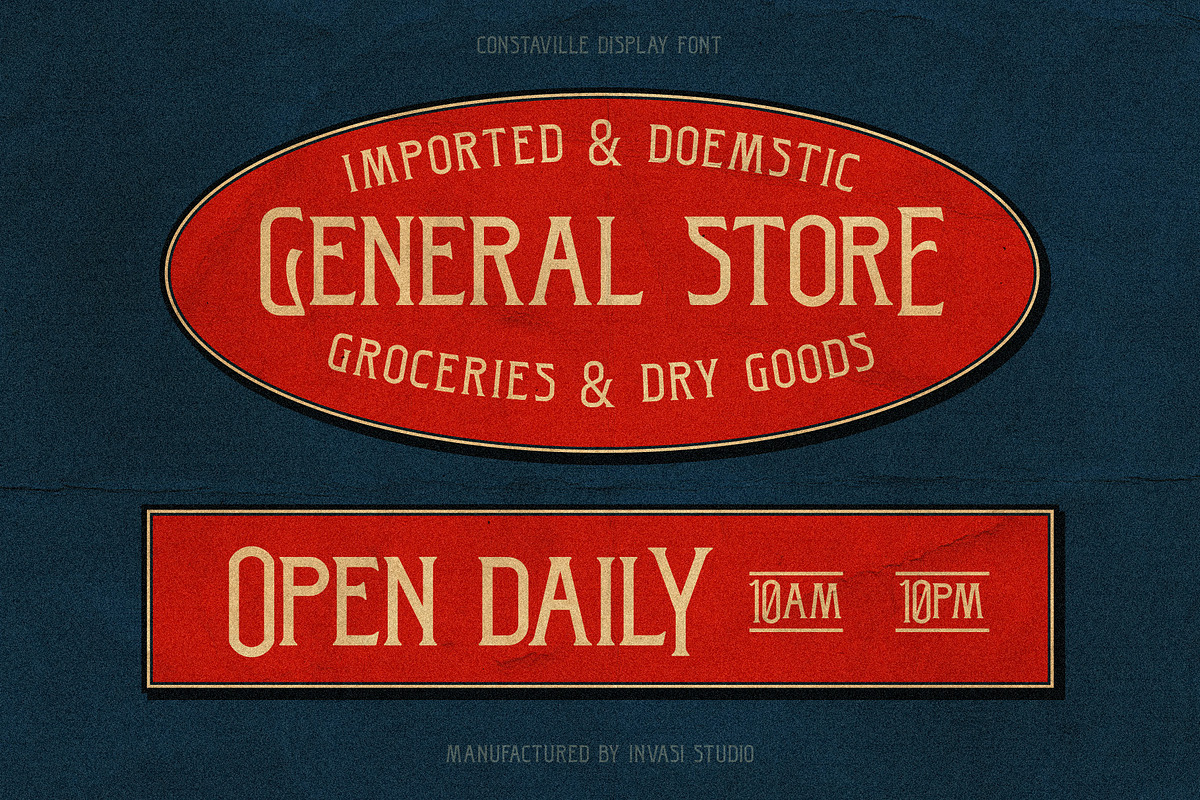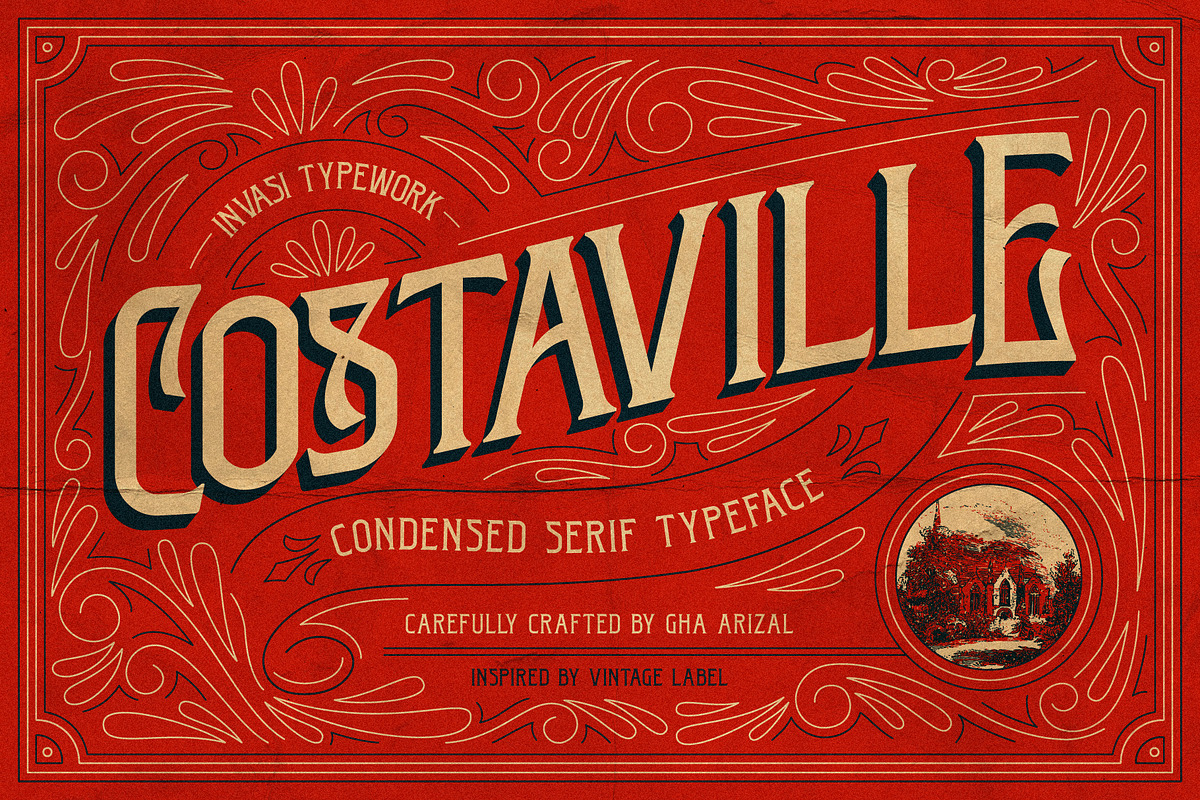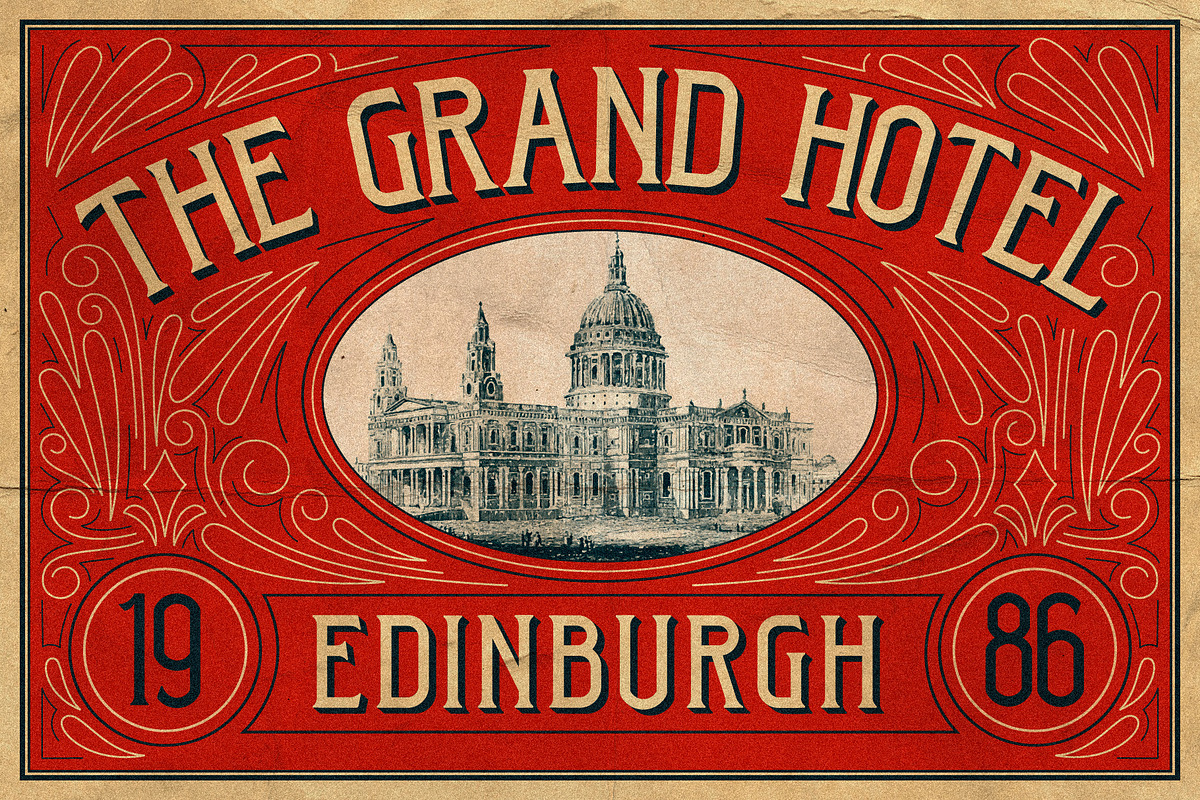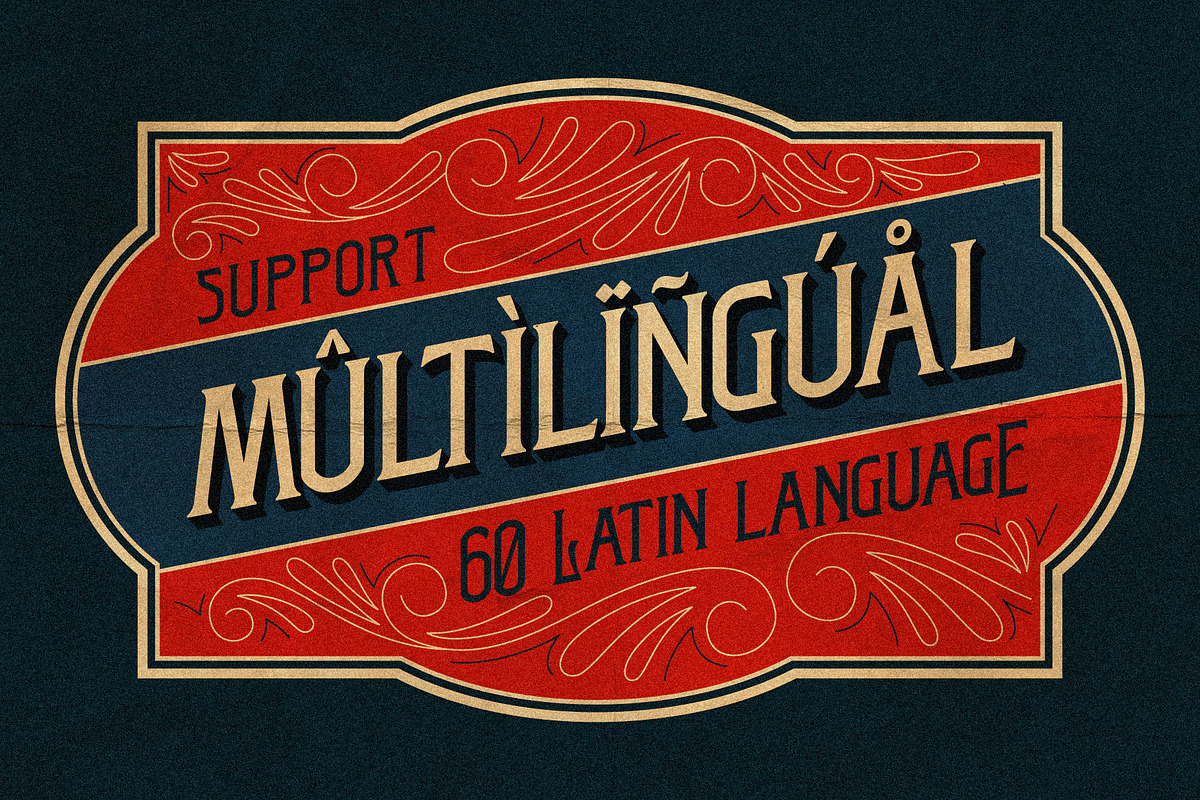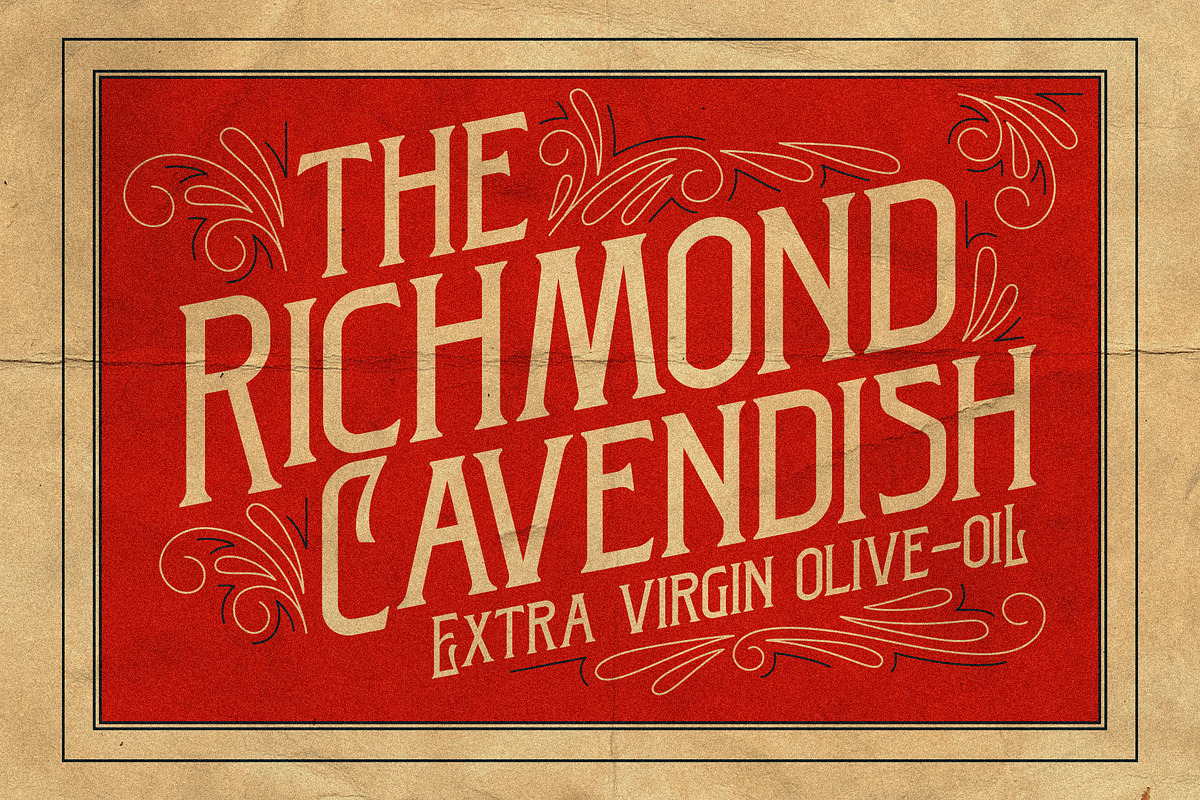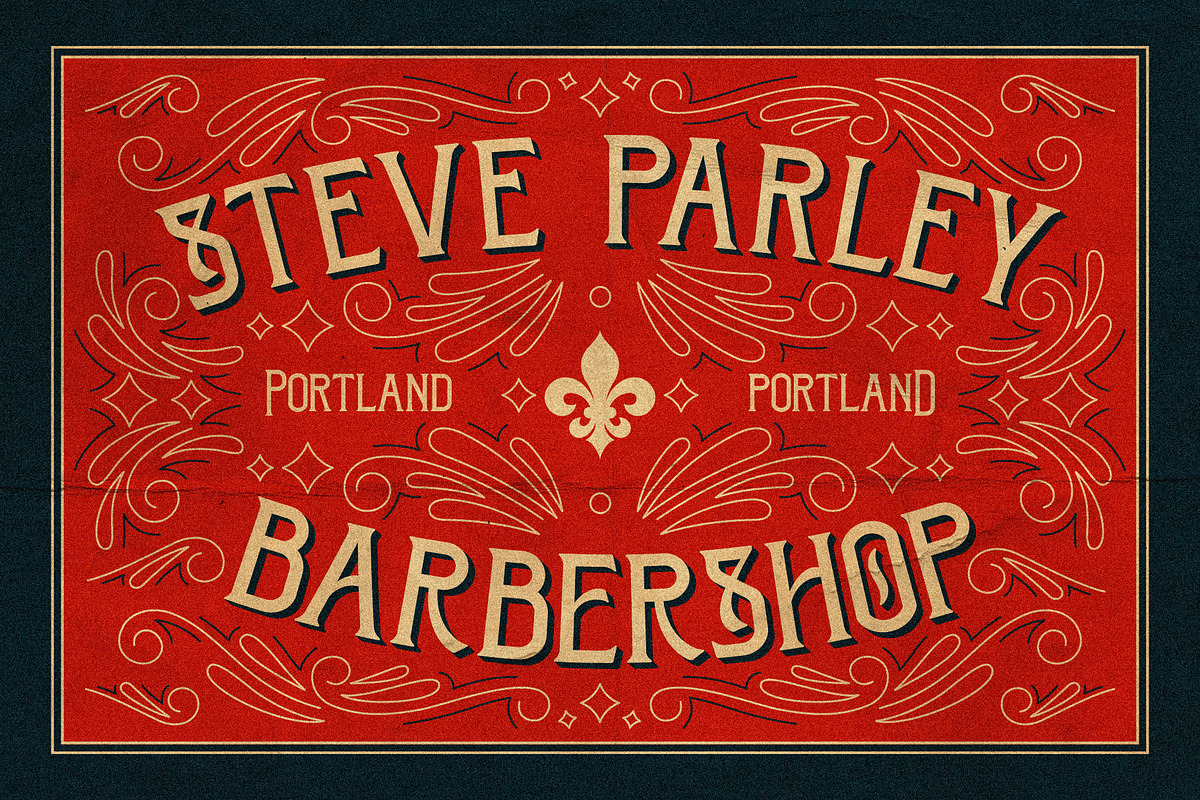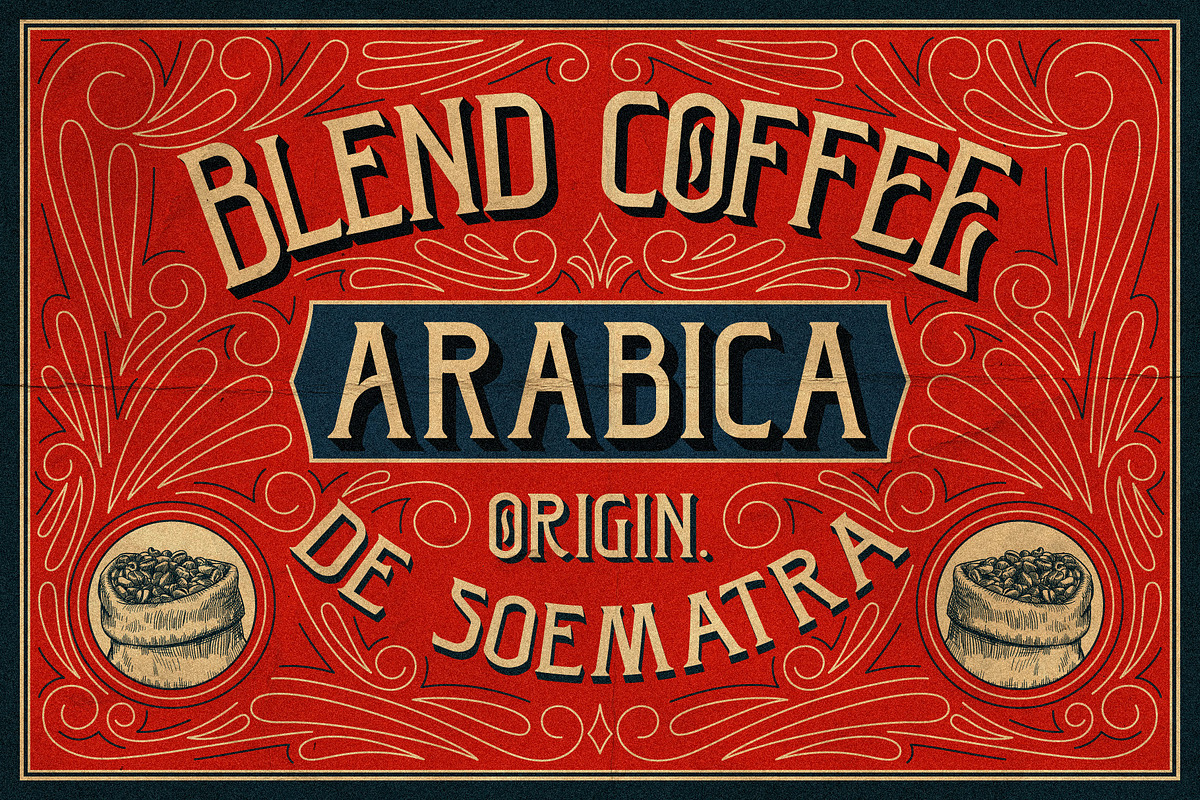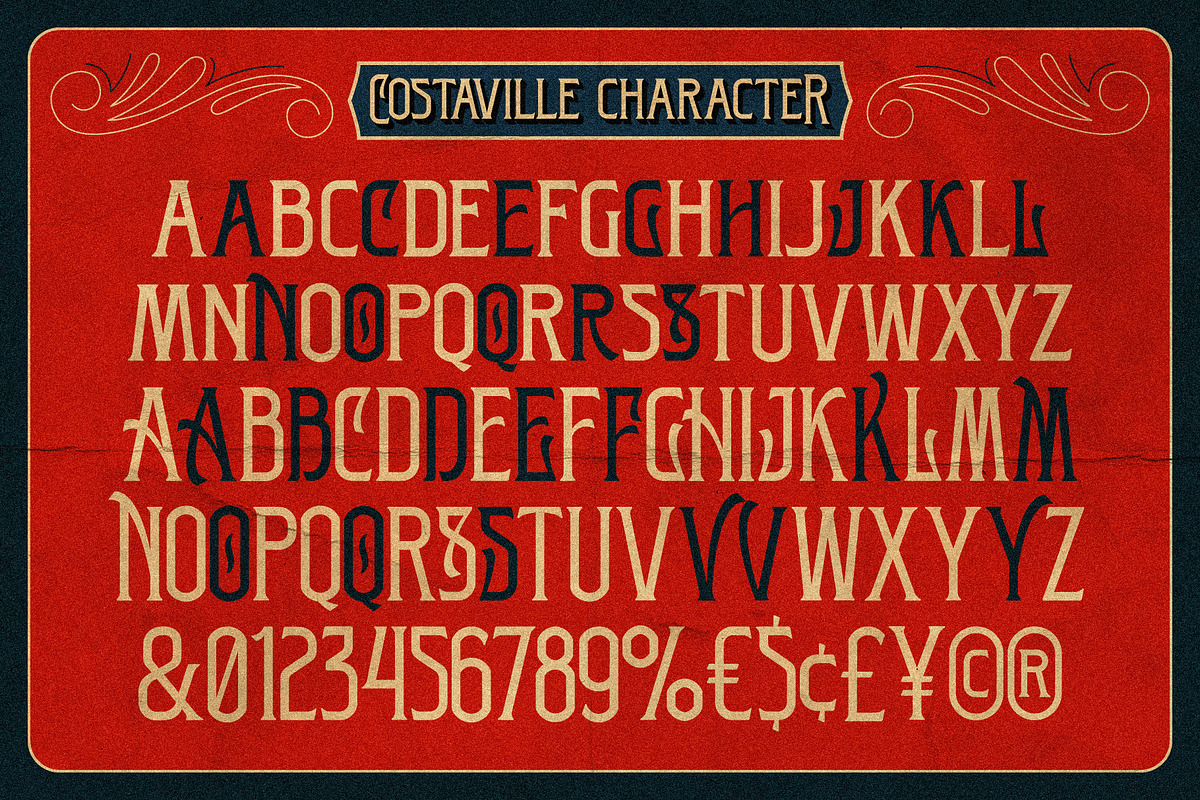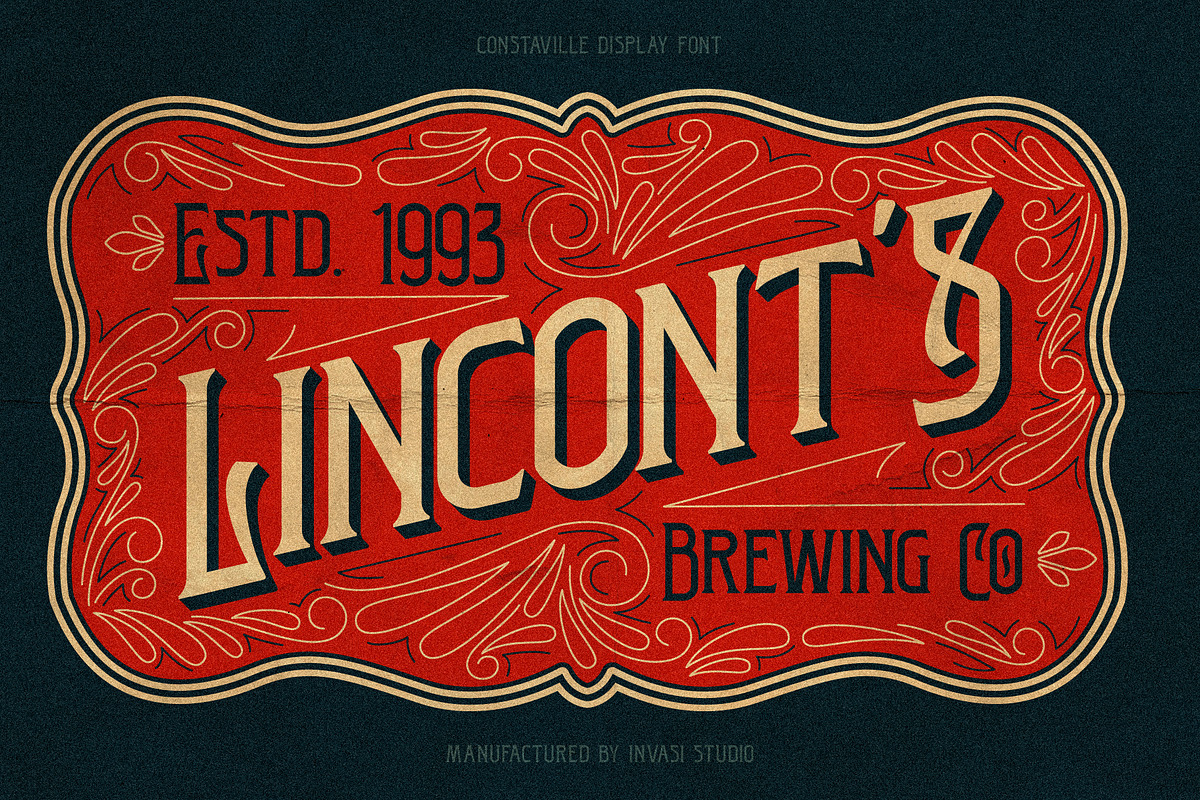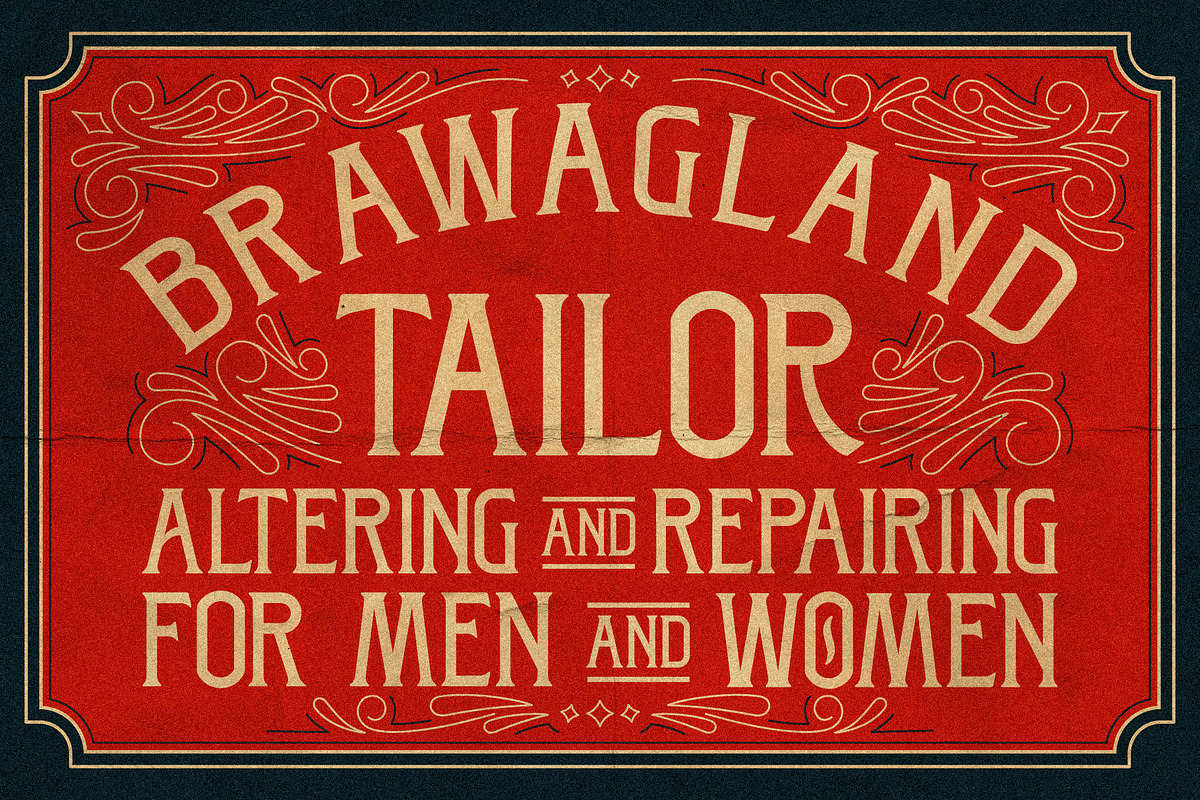
Costaville - Vintage Condensed
Inspired by the Luggage Labels from the 19th Century. Thick n thin with a condensed serif typeface that comes in an all-caps style. The OpenType feature supports stylistic alternate characters, which gives the typography composition a unique personality. Supports Latin-based multi-languages as well.
Suitable for display needs such as signage, poster, logo, label, headline, cover design, etc
- Multilanguage Supports 60+ Latin-based languages